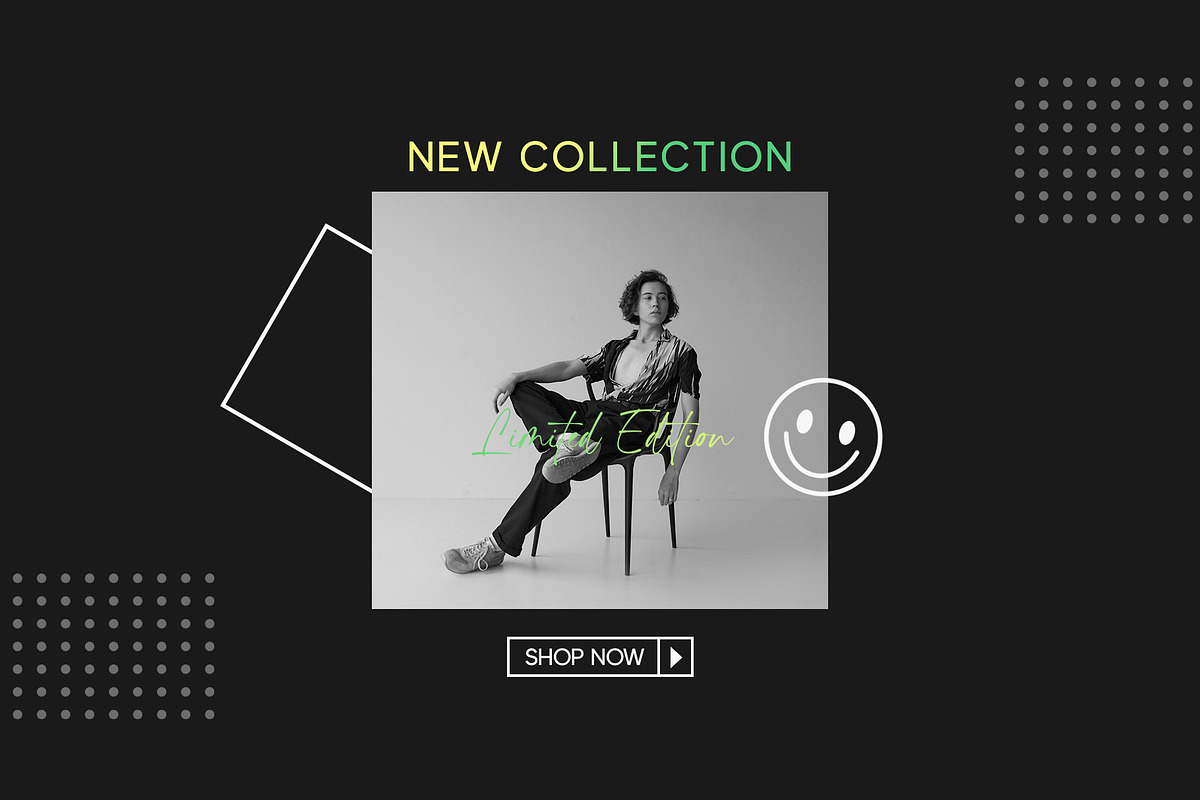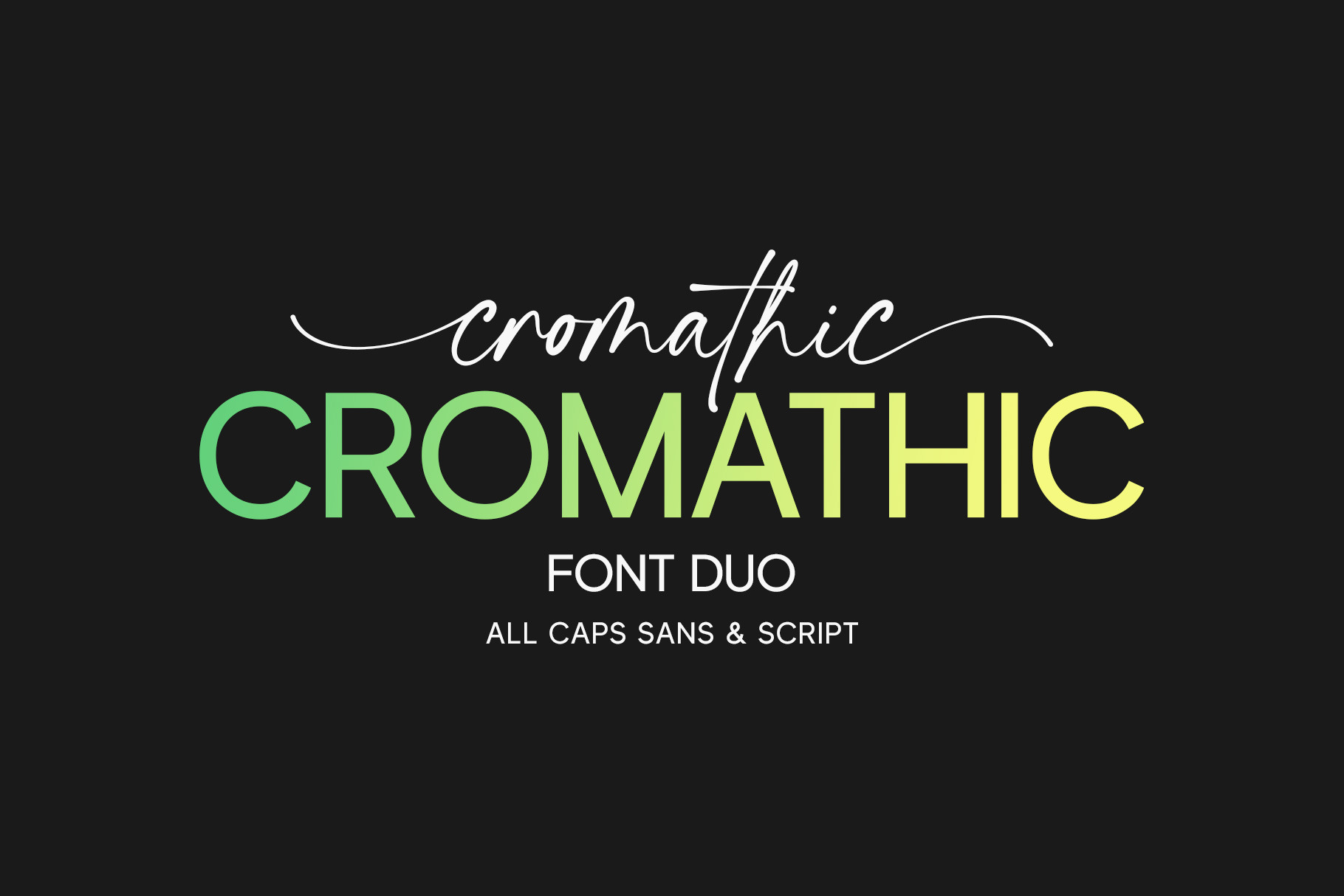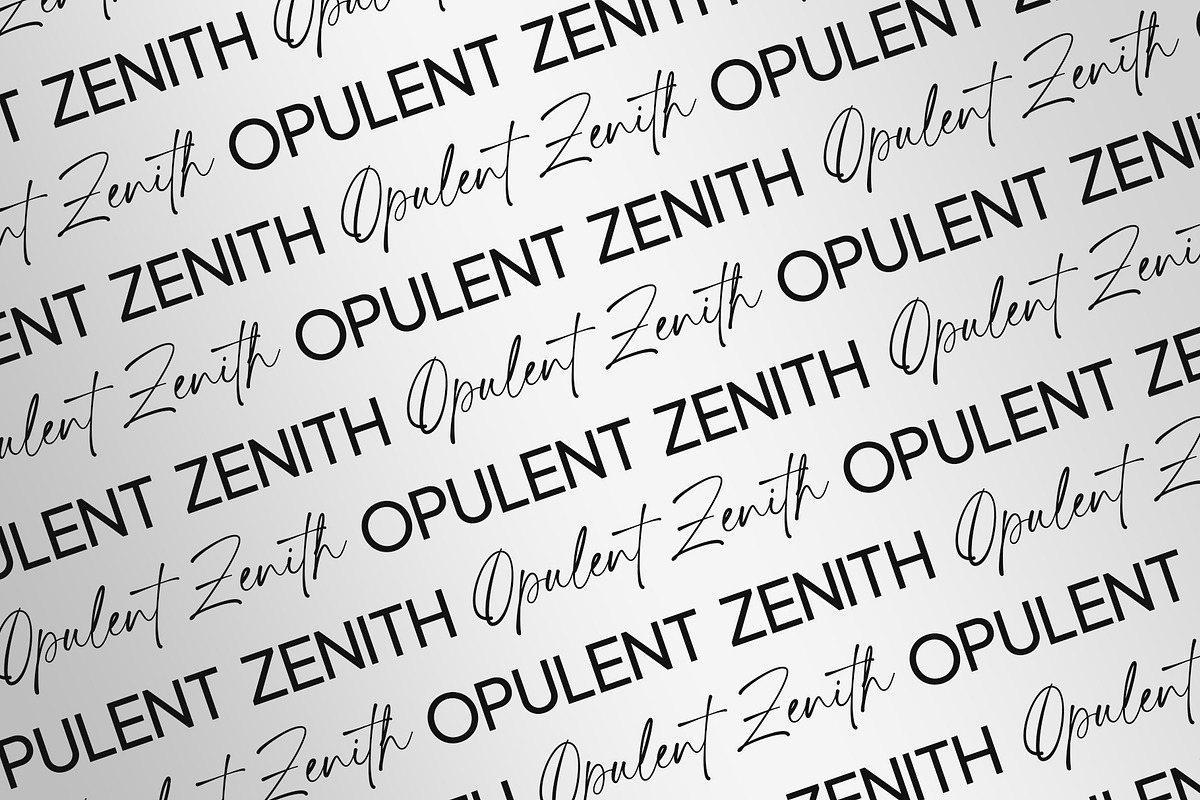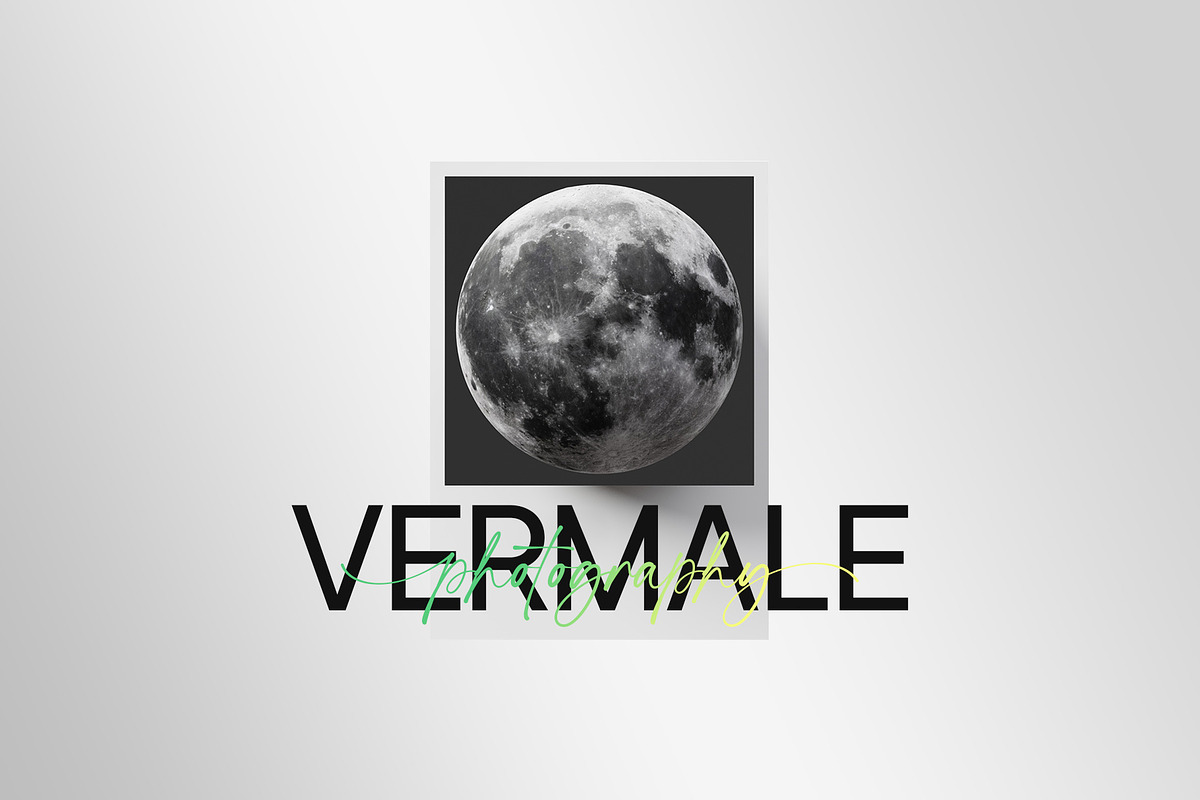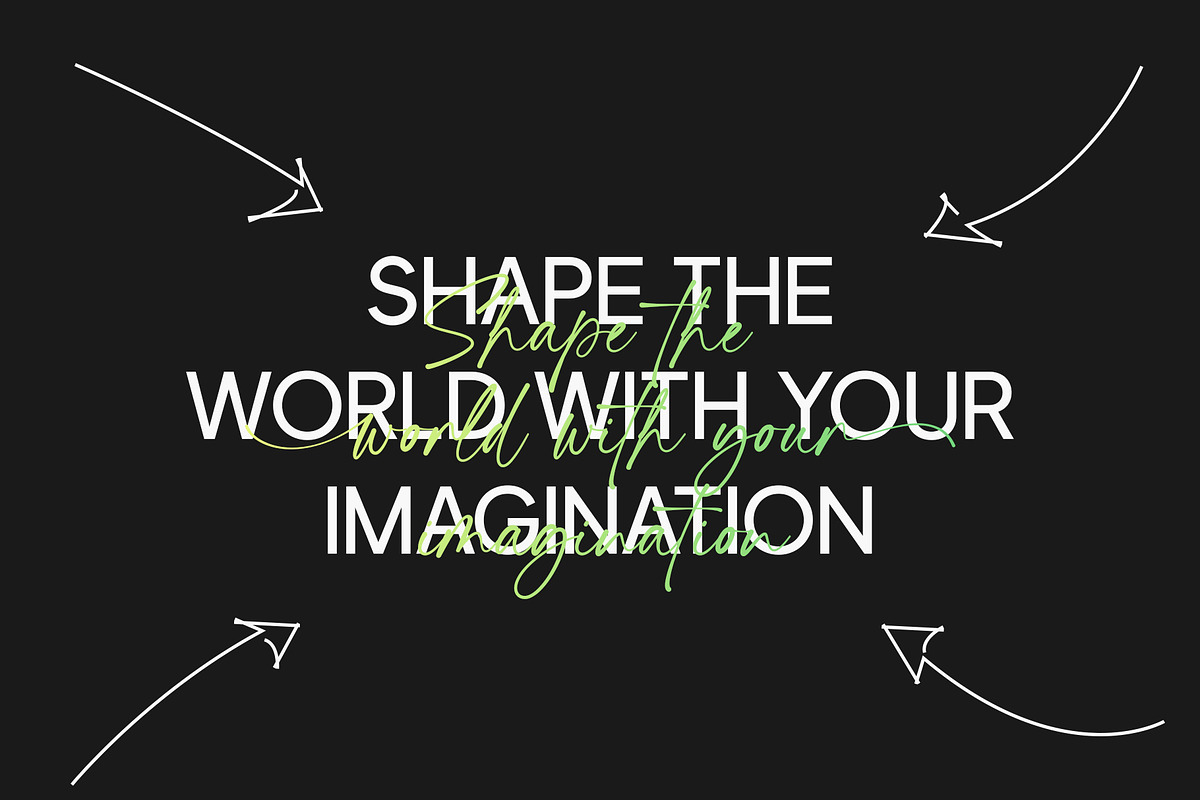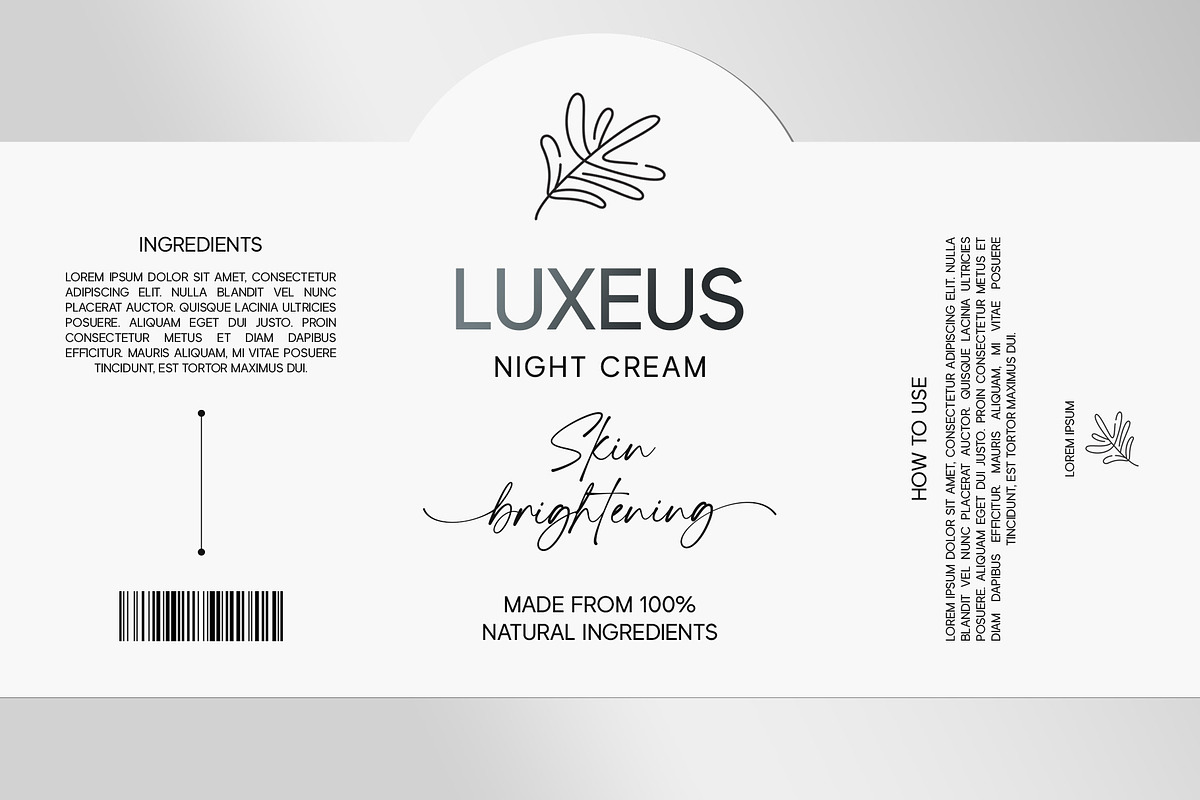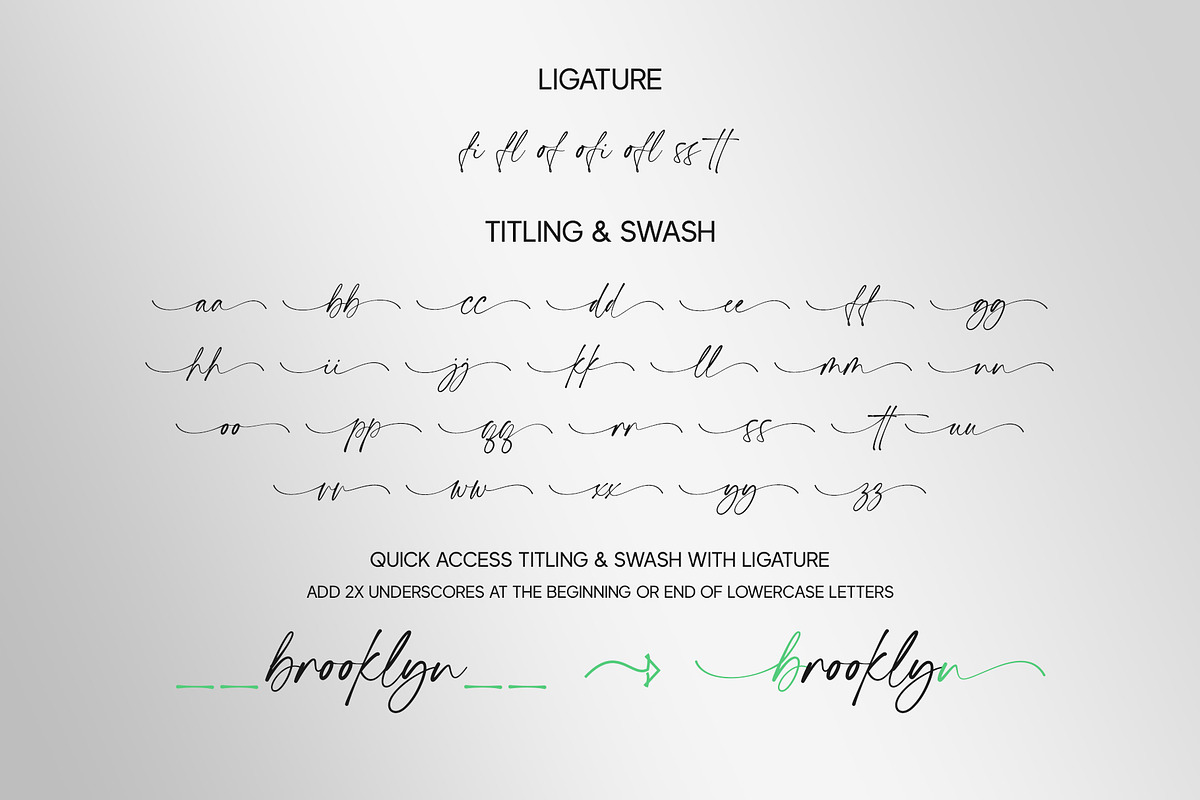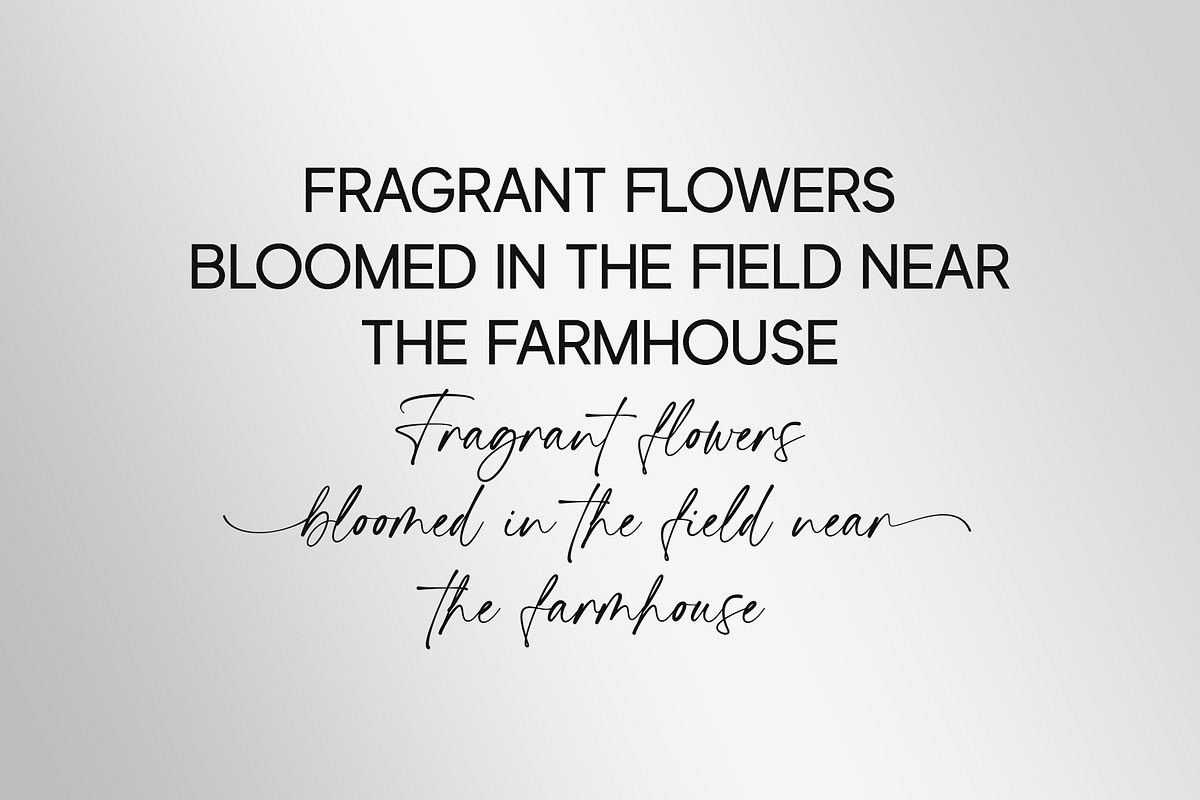
Cromathic | Font Duo
Cromathic Font Duo combines a modern all caps sans-serif style with an elegant touch of script font, providing a versatile design with a minimalist yet appealing impression. This combination is suitable for various design projects such as logos, branding, posters, labels, product packaging, and invitations. With balanced contrast, Cromathic Font Duo offers design flexibility to highlight messages with a clean and attractive style.
- Script & All Caps Sans
- Titling
- Titling: Add 2x underscore before lowercase a-z. Ex: __a
- Swash: Add 2x underscore after lowercase a-z. Ex: a__